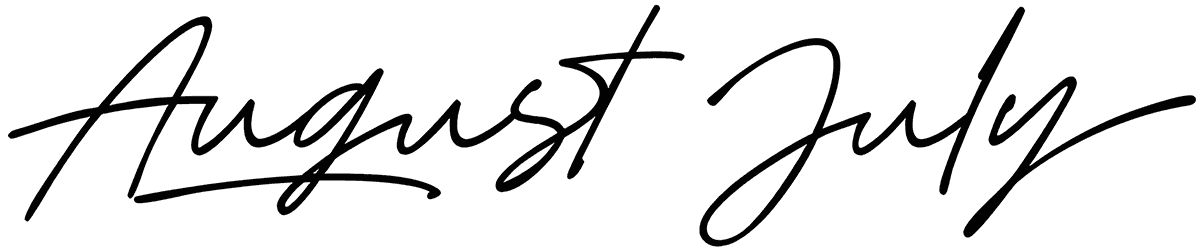
August July Font
Don’t you think that a calligraphy font can be a perfect adornment for your words when you are working on a fashionable design? If your answer is yes, we offer you August July, which has the potential to level up your layout. This handwritten font with its casual form will be an ace item for many creative designs like postcards, business cards, or the same.